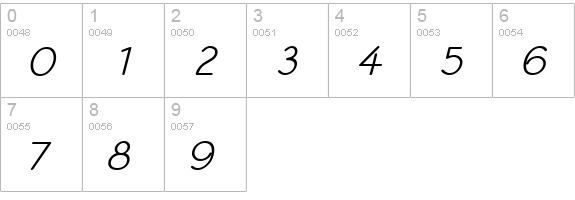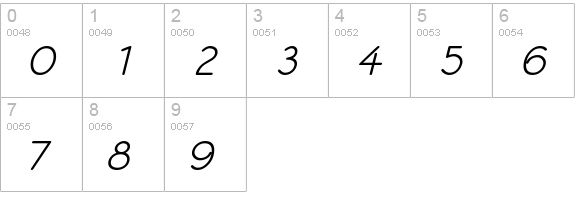
Register Sans BTN Dm Oblique is a distinctive, italic variant in the Register typeface family \xE2\x80\x94 well suited to design and typography projects.
Register Sans BTN Dm Oblique font is a contemporary and stylish typeface that exudes elegance and sophistication. With its slanted and italicized design, this font adds a touch of dynamism and flair to any project. The sleek and modern appearance of Register Sans BTN Dm Oblique font makes it perfect for a wide range of applications, including logos, headlines, titles, and branding materials. Its unique design elements make it stand out from the crowd and leave a lasting impression on viewers. One of the greatest advantages of Register Sans BTN Dm Oblique font is that it is freely available to download at FontsMarket.com. This means that you can easily access this stunning font without any hassle or cost. Whether you are a professional designer or a creative enthusiast, you can take advantage of this font to enhance your projects and create visually stunning designs. The versatility of Register Sans BTN Dm Oblique font allows it to be used in various design styles and themes. Its clean lines and smooth curves make it suitable for both modern and classic designs. It can effortlessly complement other typefaces or be used as the main font to create a cohesive and visually pleasing composition. With Register Sans BTN Dm Oblique font, you have the freedom to express your creativity and bring your ideas to life. Its legibility and readability ensure that your messages are delivered effectively, making it a perfect choice for both print and digital mediums. In conclusion, Register Sans BTN Dm Oblique font is a captivating and versatile typeface that adds a touch of elegance and sophistication to any design. With its freely available download at FontsMarket.com, you have the opportunity to unleash your creativity and create stunning visuals that leave a lasting impression on your audience.